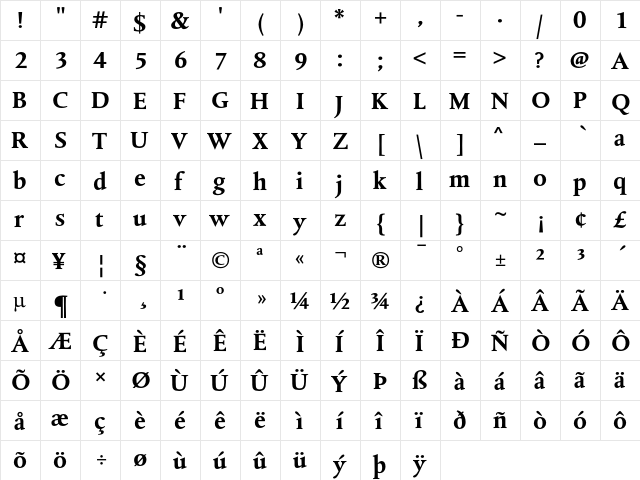
DTL Albertina T Bold
Design Context for DTL Albertina Typeface
DTL Albertina offers clean, dependable letterforms without strong stylistic allegiance, making it a practical choice for designers who need flexibility. Its bold stroke weight gives it real presence on the page.